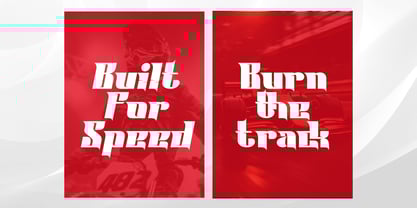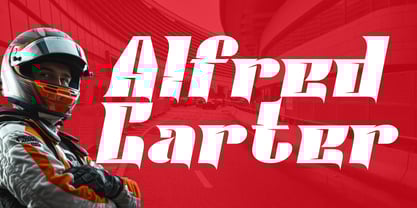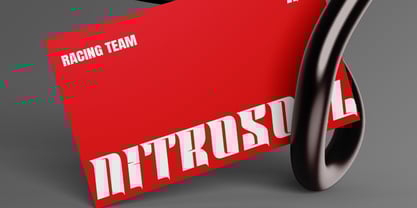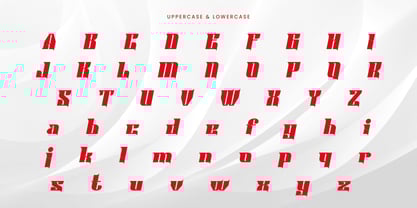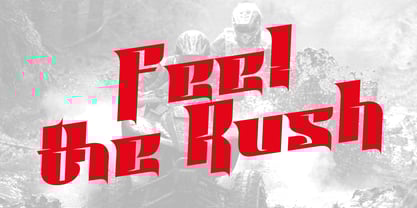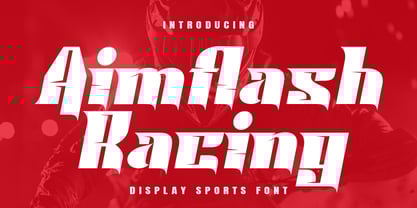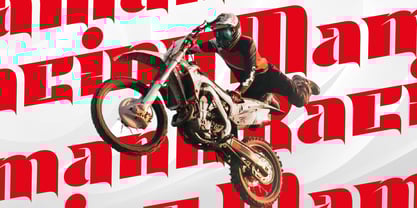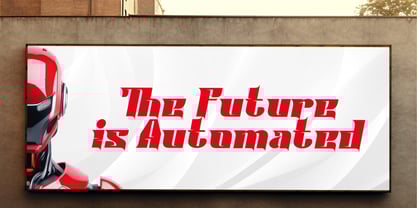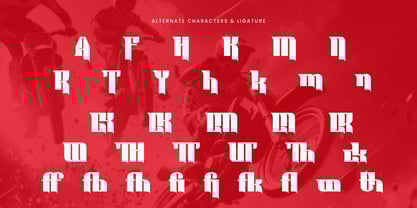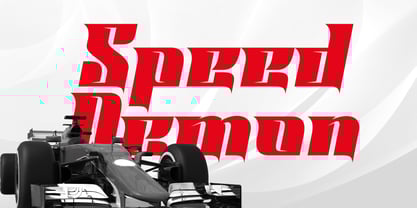
Aimflash
by Rvandtype
Aimflash is a bold and dynamic display font designed to bring speed, power, and energy to your designs. Inspired by the world of motorsports, Aimflash features sharp angles, fast lines, and an aggressive stance that makes it perfect for racing posters, automotive branding, esport logos, and adrenaline-fueled headlines. With its sporty aesthetic and impactful presence, Aimflash delivers a sense of motion and intensity—whether you’re designing for a racing team, extreme sports brand, or high-performance product.